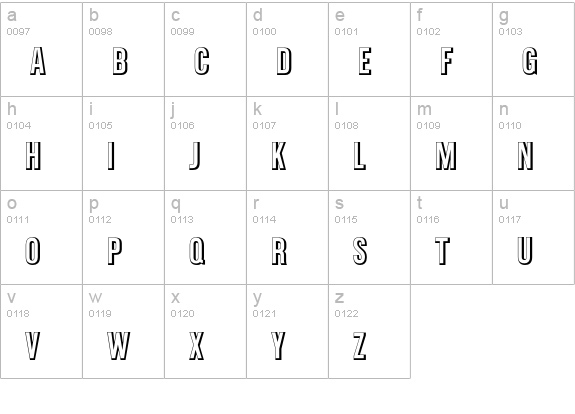
Commerce Gothic Std is a versatile and modern typeface that exudes an air of sophistication and professionalism. With its clean lines and sharp edges, this font is perfect for a wide range of design projects, from branding to editorial design. The bold and impactful nature of Commerce Gothic Std makes it a great choice for headlines, logos, and other display purposes. One of the best things about Commerce Gothic Std is that it is free to download at FontsMarket.com. This means that you can easily access this high-quality font without breaking the bank. Whether you're a designer looking to add a new typeface to your collection or a business owner in need of a fresh look for your branding, Commerce Gothic Std is a great choice that won't cost you a thing. So why wait? Head over to FontsMarket.com today and download Commerce Gothic Std for free to elevate your designs and make a lasting impression on your audience.